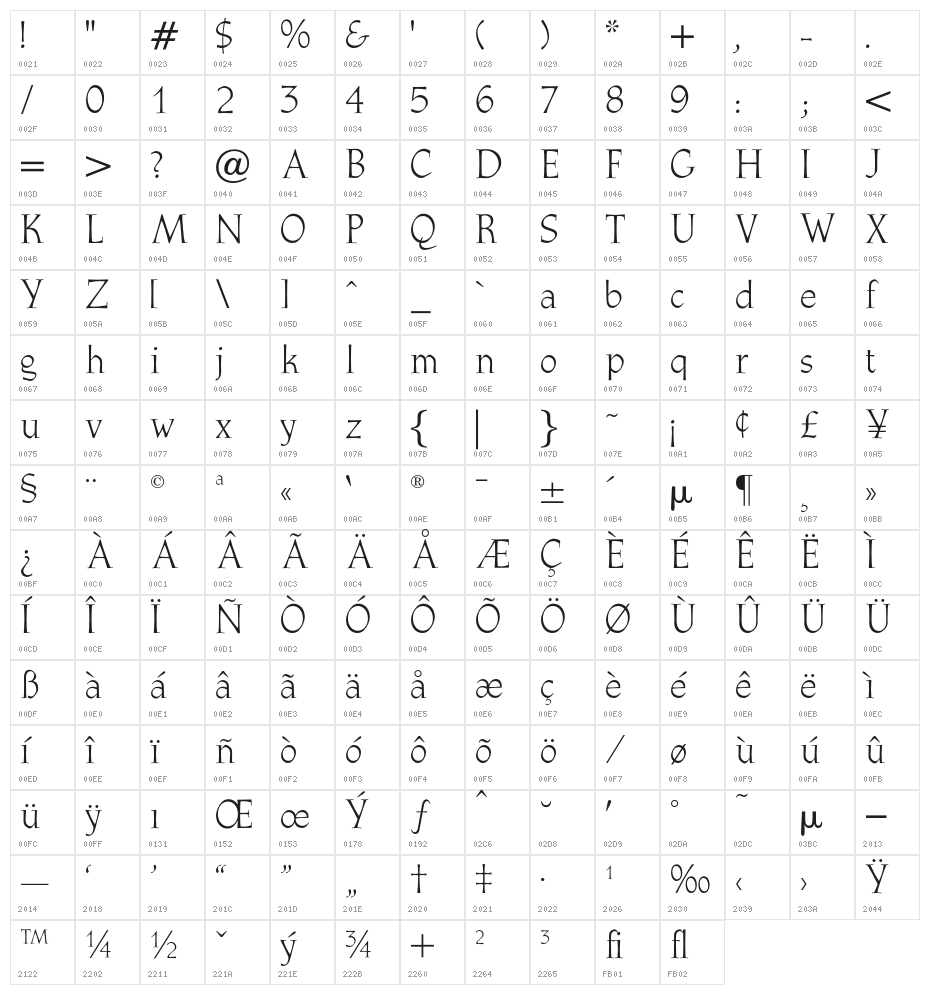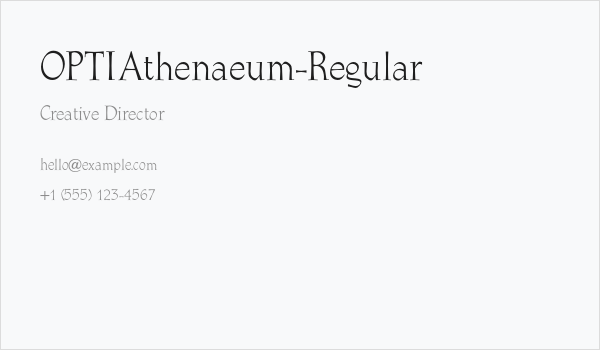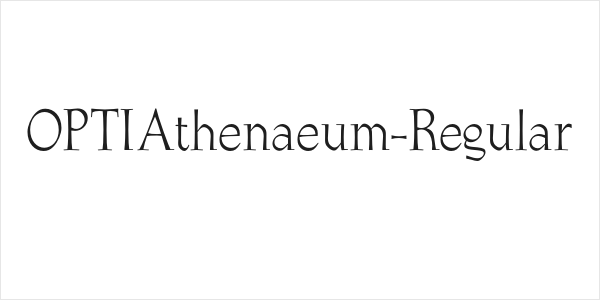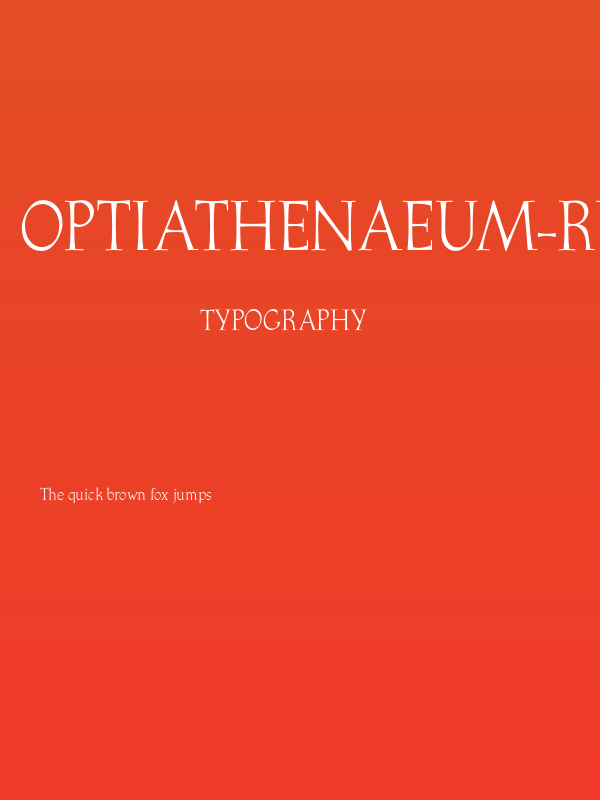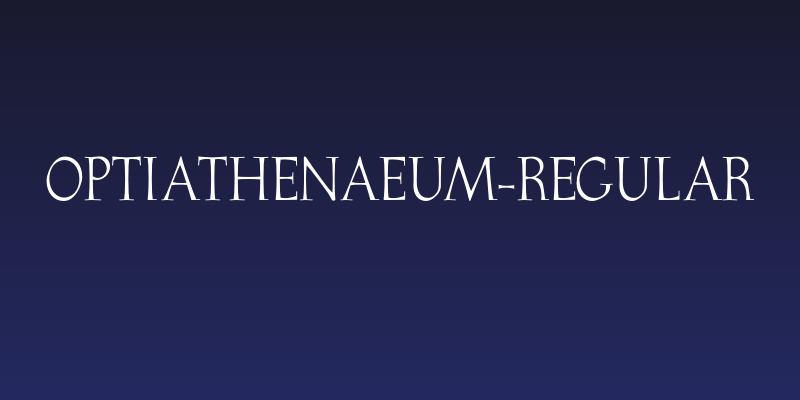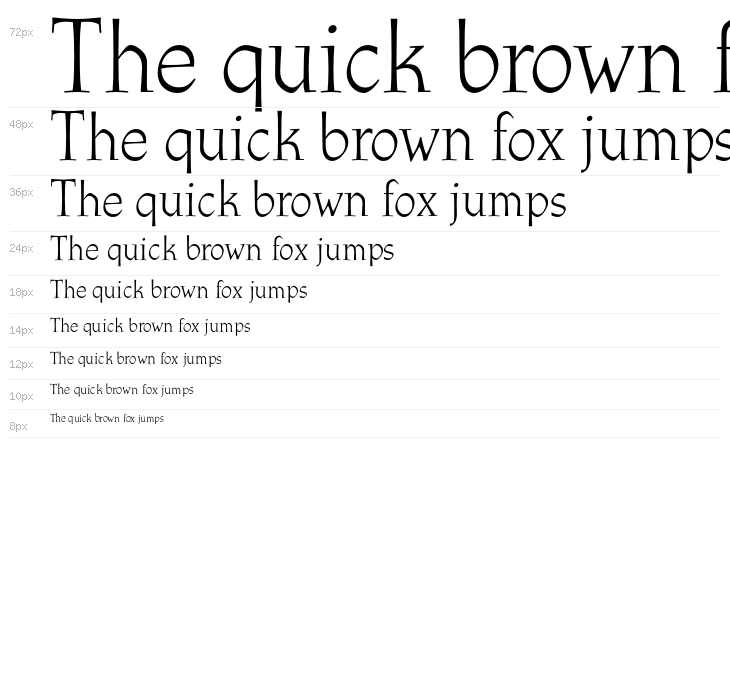
OPTIAthenaeum-Regular Font
OPTIAthenaeum-Regular Description
This font presents a refined and elegant serif style, characterized by its classic and timeless appearance. The uppercase letters exhibit a balanced proportion with slightly elongated serifs, giving them a sophisticated look. The lowercase letters maintain a consistent flow, with gentle curves and a harmonious structure. The numerals are clear and distinct, ensuring readability. Special characters are thoughtfully designed, complementing the overall aesthetic. The font's design is versatile, suitable for both formal and creative applications, making it a great choice for projects that require a touch of elegance.
Overall StyleClassic
Proposed ProjectsIdeal for book covers, editorial design, invitations, and branding materials.